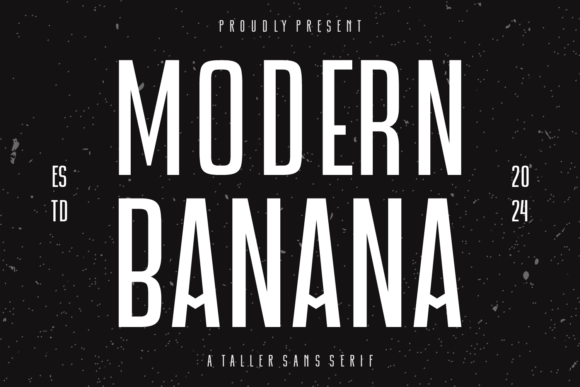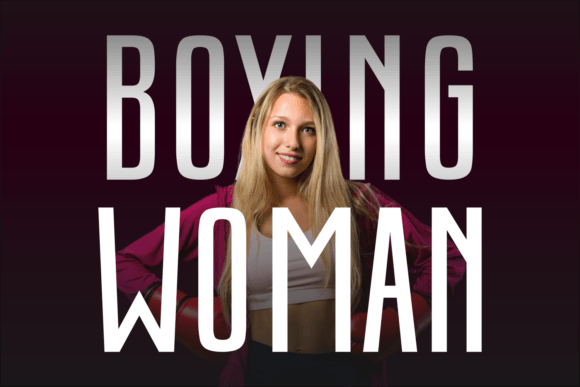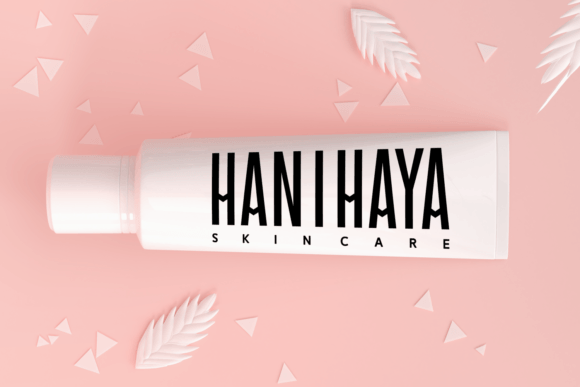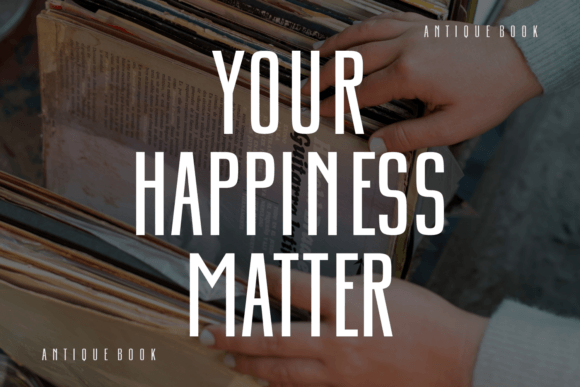
Modern Banana Font: A Bold Display Sans Serif for Logos & Posters!
About the Modern Banana Font
Unleash your creativity with Modern Banana Font, a versatile font perfect for a wide range of applications. Modern Banana is a playful yet elegant sans-serif font featuring smooth curves and bold, contemporary lines. Its quirky character combines modern minimalism with a touch of whimsy, making it perfect for branding, logos, posters, and creative projects that demand unique visual appeal.
Modern Banana thrives in headlines, short-form text, and branding applications where a bold yet approachable personality is desired. Its unique curves work exceptionally well in logos and short impactful statements, adding visual interest without sacrificing readability. However, its playful nature makes it less suitable for body copy or lengthy paragraphs, or UI elements requiring high legibility.
Consider pairing Modern Banana with a clean, geometric sans-serif like Montserrat for a balanced contrast, or a classic serif like Garamond for a touch of refined elegance. For a more playful approach, a handwritten script font could add a layer of warmth.
The font projects a friendly, modern, and slightly quirky personality, ideal for brands targeting a younger demographic or projects requiring a creative, energetic feel. Avoid using it where a sense of formality or extreme minimalism is paramount.